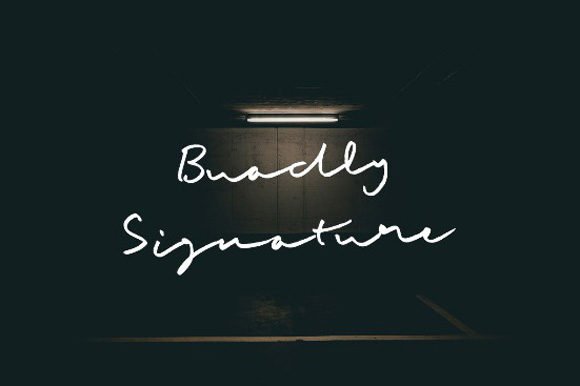
Unleashing the Elegance of Your Designs
As a designer, have you ever been stuck trying to convey luxury and sophistication in your work? Maybe you’re struggling to find the perfect font that exudes high-end style. You’re not alone. We’ve all been there, scrolling through font libraries, searching for that elusive combination of elegance and modernity.
That’s where the Buadly Font comes in – a modern signature font designed to add a touch of luxury to your designs. With its sleek lines and refined aesthetic, Buadly Font is the perfect choice for any project that demands sophistication and style. Whether you’re working on a high-end branding project or creating a luxurious website, Buadly Font is sure to elevate your design game.
As a valuable addition to any designer’s toolkit, Buadly Font offers unparalleled flexibility and versatility, making it an essential resource for creatives of all levels.
Buadly Font Key Features
- Unique Characteristics: Buadly Font features a distinctive blend of modern and traditional elements, with unique letterforms and flourishes that set it apart from other fonts.
- Legibility and Readability: The font is designed to be highly legible and readable, even at small font sizes, making it ideal for body text and long-form content.
- Language Support: Buadly Font supports a wide range of languages, including Latin, Cyrillic, and Greek alphabets, as well as many non-Latin scripts.
Buadly Font Review
I was excited to dive into the world of Buadly Font, and I must say, it’s a mixed bag. Let’s start with the good stuff: ✨ the unique, handwritten feel is a standout feature. The font has a playful, artistic vibe that can add a touch of whimsy to any design project. The variations in letterforms and ligatures are particularly well-executed, giving the font a sense of movement and energy.
✨ The font also performs well in terms of legibility, making it suitable for body text and headlines alike. The OpenType features are robust, allowing for a high degree of customization and control.
- Limited language support: Buadly Font is primarily designed for Latin-based scripts, which may limit its usability for non-Latin languages.
- Not ideal for small text sizes: While the font is legible, it can become blurry and difficult to read at very small sizes.
Overall, I’d say Buadly Font is a solid choice for designers looking to add a touch of personality to their projects. While it may not be the most versatile font, its unique charm and robust feature set make it a worthwhile addition to any design arsenal. With some careful selection and use, Buadly Font can help elevate your designs and leave a lasting impression.
The Buadly Font is a great choice for:
- Casual, handwritten text
For the best results, pair the Buadly Font with a clean and simple design, and use it sparingly to add a touch of personality to your project.
Alternatives to “Buadly Font” for Designers
Great Vibes is a beautiful, elegant script font perfect for adding a touch of sophistication to designs. It’s ideal for use in headings, titles, and quotes. Great Vibes is more elegant and refined compared to Buadly Font, which has a more casual, handwritten feel.
Pacifico is a clean, modern script font that’s great for use in logos, branding, and advertising. It’s perfect for designers who want to create a sense of calmness and serenity in their designs. Pacifico is more geometric and structured compared to Buadly Font, which has a more organic feel.
Dancing Script is a beautiful, elegant script font that’s perfect for use in headings, titles, and quotes. It’s ideal for designers who want to add a touch of sophistication and glamour to their designs. Dancing Script is more flowing and dynamic compared to Buadly Font, which has a more casual feel.